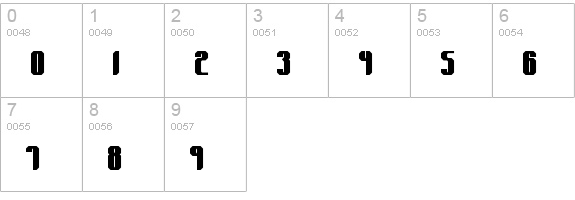
Wager BRK Font Details
Introducing Wager BRK font, a stunning typeface that brings a touch of elegance and sophistication to your designs. With its sleek and modern design, this font is perfect for a variety of projects, from branding and logos to invitations and packaging. Wager BRK font features clean lines and subtle curves, creating a harmonious balance that is visually appealing. Its versatility allows it to be used in both bold headlines and delicate body text, making it an excellent choice for any design project. But what truly sets Wager BRK font apart is its availability. This incredible font is not only beautifully crafted, but it is also freely available to download at FontsMarket.com. Yes, you heard it right - this font is completely free! This means that you have the opportunity to enhance your designs with a high-quality font without breaking the bank. Whether you are a professional designer or a passionate hobbyist, Wager BRK font is a valuable addition to your font collection. Its timeless beauty and versatility make it a go-to choice for any project, and the fact that it is freely available only adds to its appeal. So why wait? Visit FontsMarket.com today and download Wager BRK font for free. Elevate your designs and make a lasting impression with this exquisite typeface.